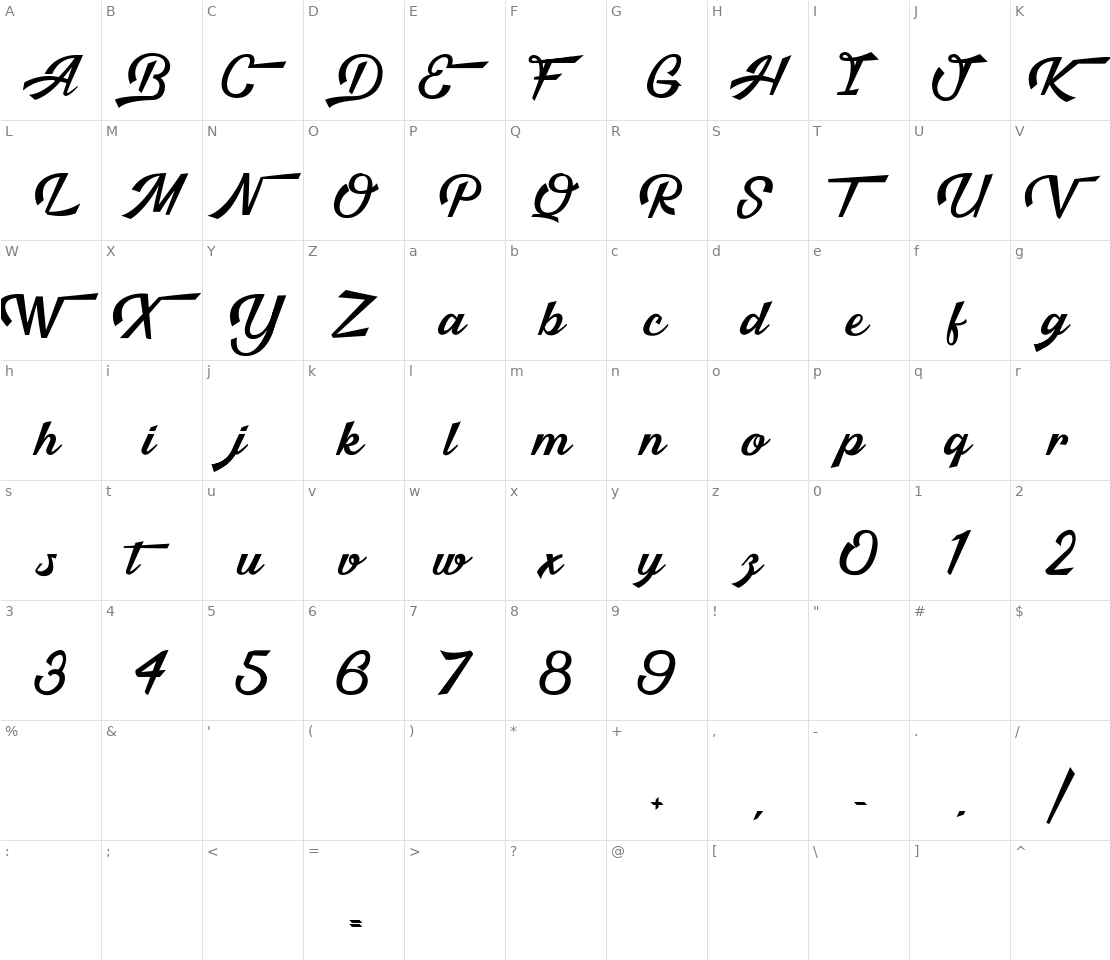
Malibu Babylon
Malibu Babylon is a bold connected script from Octotype's Thomas Boucherie with a fast, slanted rhythm that feels like it was written in one confident sweep. The thick strokes and energetic forward lean give it a casual but punchy personality, built for headlines, packaging, and branding that needs to feel loose and alive without losing its visual weight.